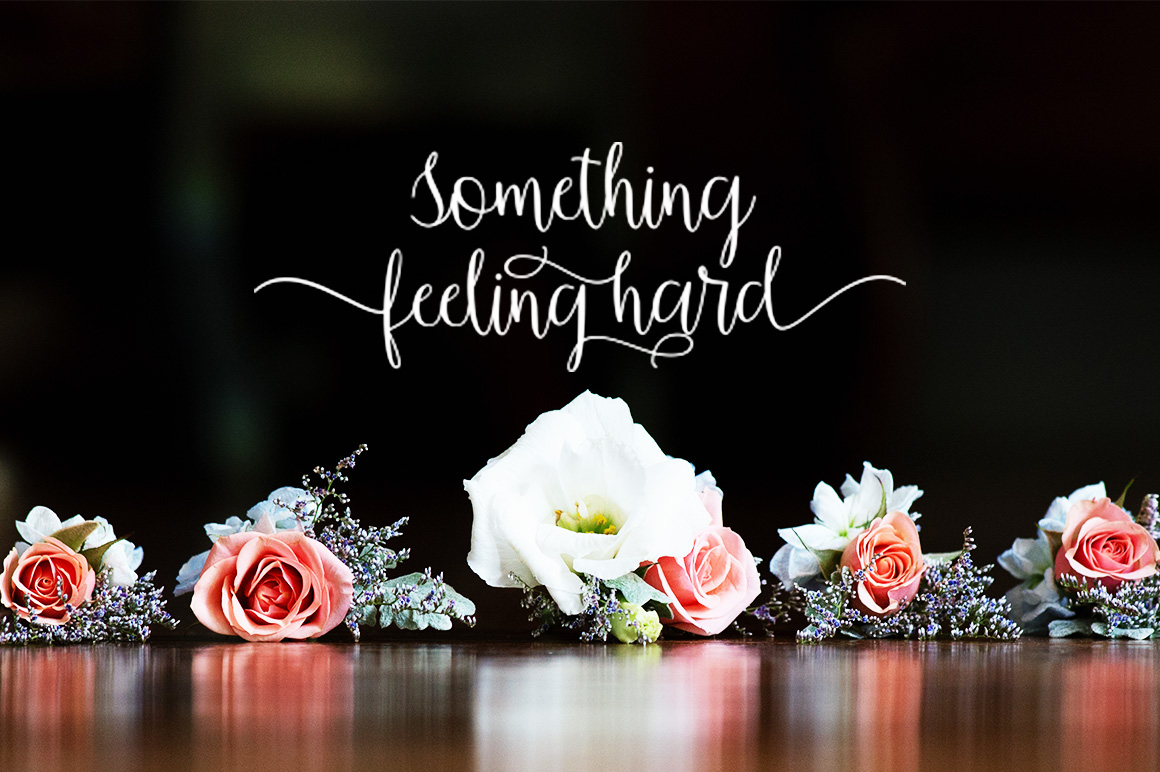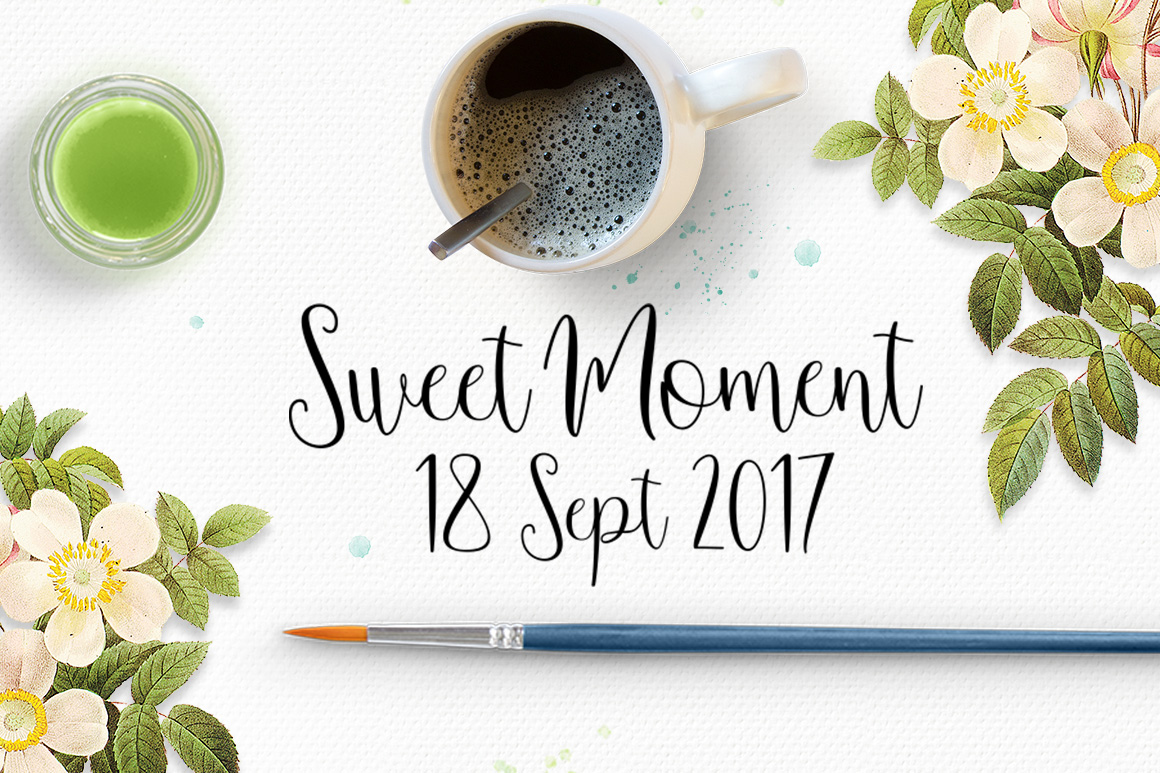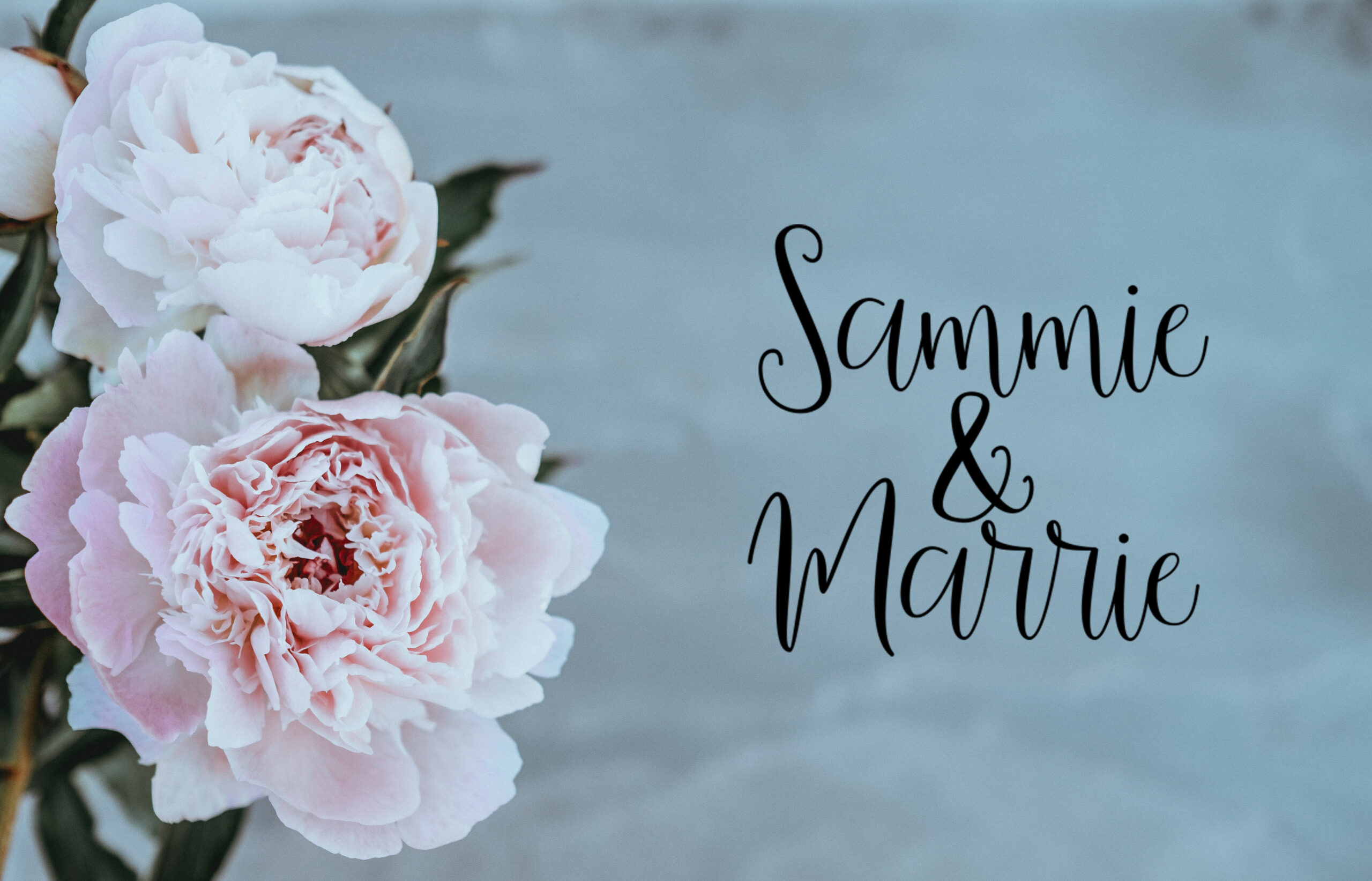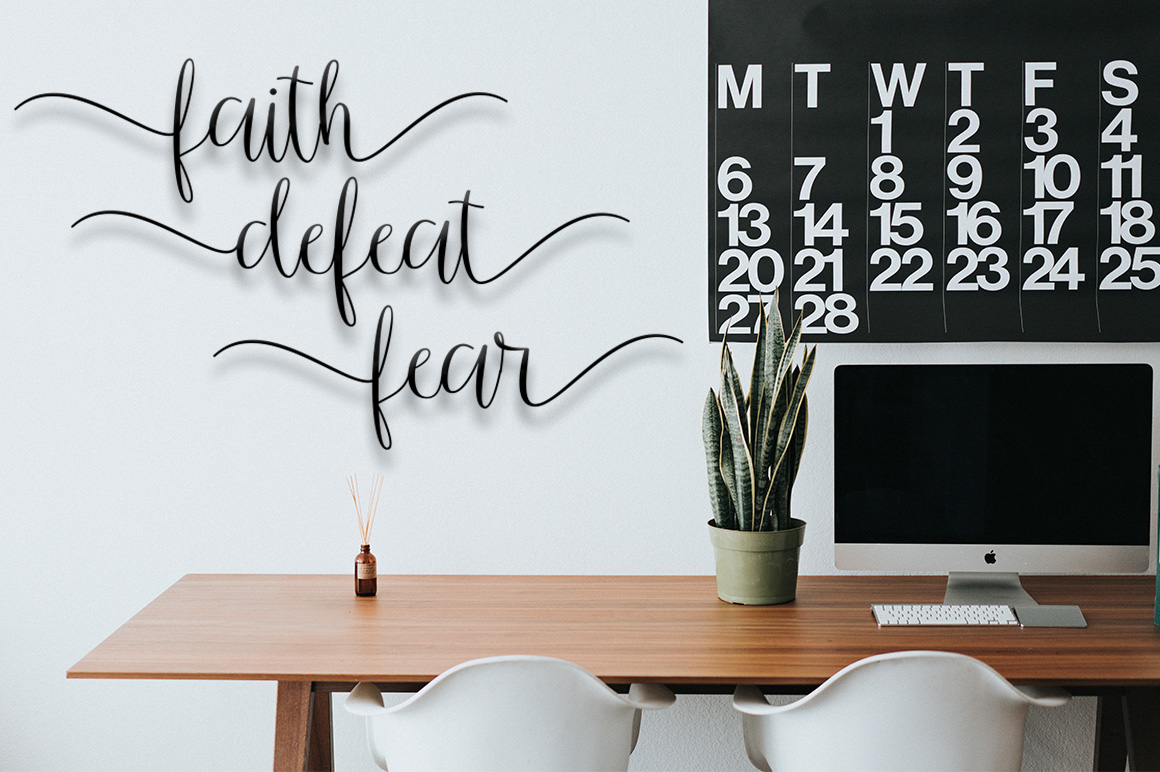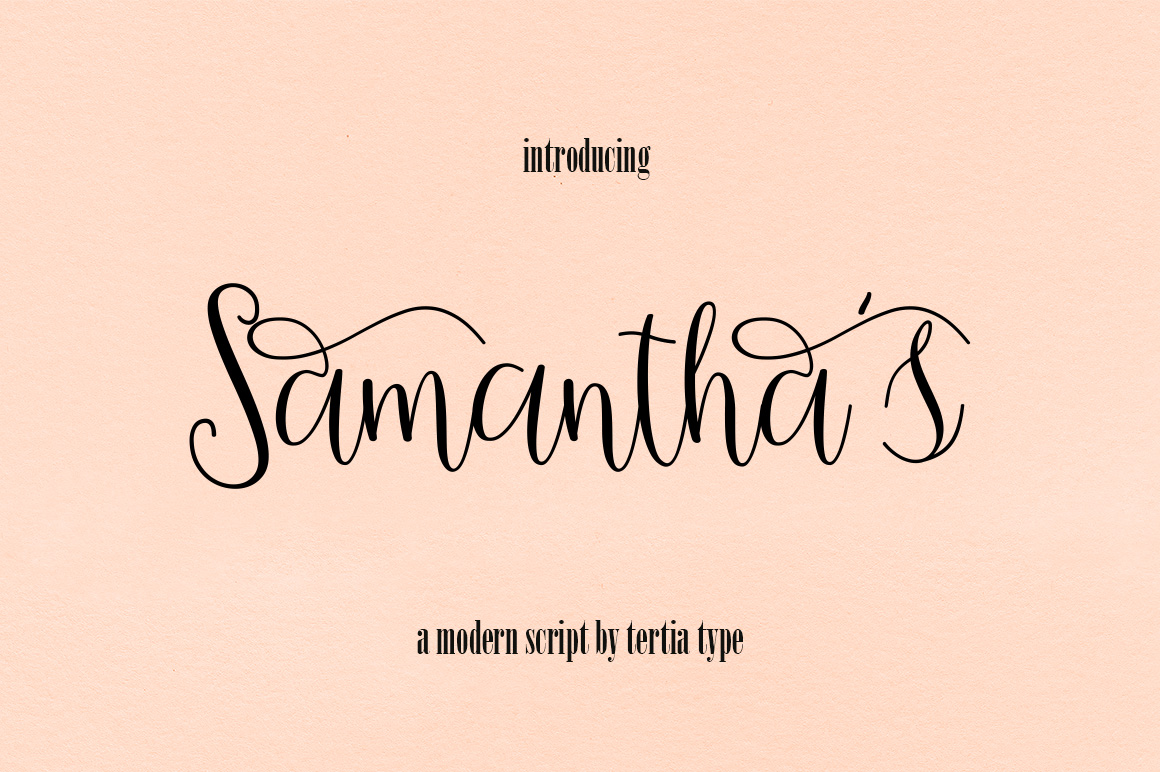
Samantha’s Script is a classically decorative font with a modern twist; a display font meant for headlines and attention grabbing designs, this is a fancy and beautiful font worthy of use time after time.